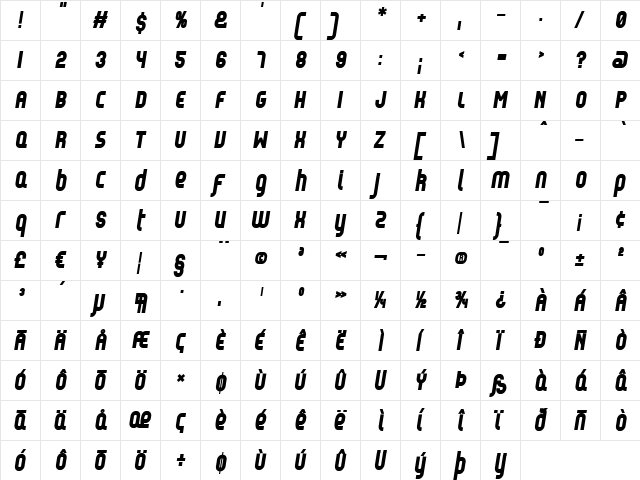
Reflex - Black Italic
| Foundry | Alejandro Paul for Typeworx |
Design Context for Reflex - Black Typeface
Reflex - Black takes a measured approach to typography — its balanced proportions and neutral character make it a reliable workhorse for both digital and print work. Its italic angle brings a sense of urgency and motion to the letterforms.